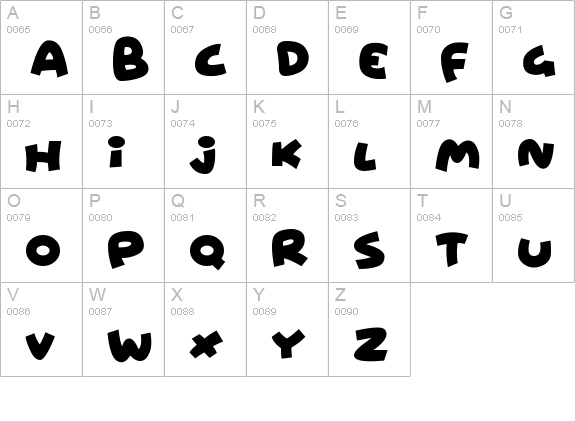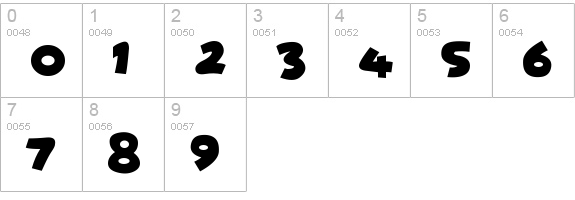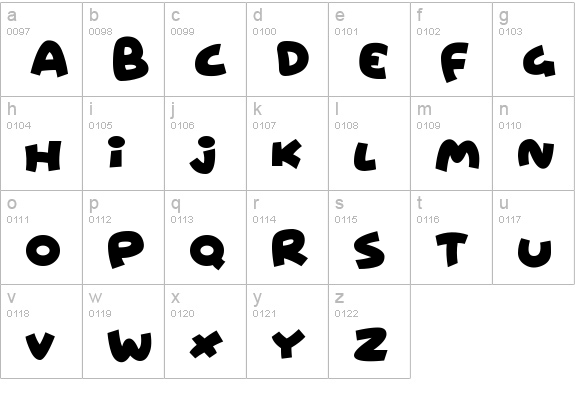
Wowsers is a donationware font in the Fancy > Comic category, designed by Darrell Flood. It has been downloaded 90 times and is available for Windows, Mac and Linux.
Wowsers font is a stunning display typeface that is sure to make your designs stand out. With its bold and eye-catching appearance, Wowsers is perfect for headlines, logos, posters, and more. This versatile font features clean lines and a modern aesthetic that will give your projects a contemporary look.